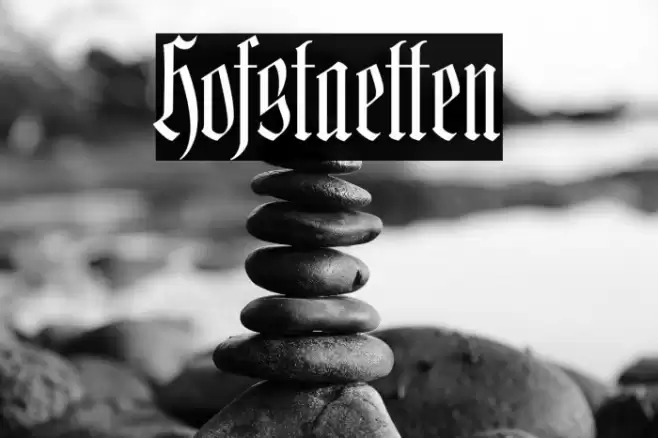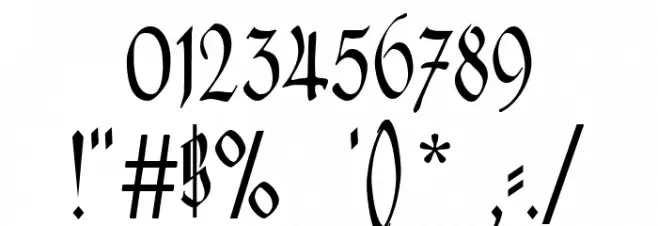
Hofstaetten Font
Hofstaetten Description
This font features a classic blackletter style, characterized by its intricate and ornate letterforms. The uppercase letters exhibit sharp, angular lines with dramatic flourishes, while the lowercase letters maintain a consistent, narrow structure. The numbers and special characters follow the same ornate design, providing a cohesive look across all glyphs. This font's historical and traditional appearance is reminiscent of medieval manuscripts and Gothic architecture, making it ideal for projects that require a touch of elegance and formality.
A classic blackletter font with ornate, angular letterforms from Uncategorized fonts.
- Proposed Projects: Suitable for certificates, invitations, branding for luxury products, historical or medieval-themed events, and decorative headlines.
- Character Spacing: Tight
- Overall Style: Vintage
- Use Case: Headlines, Logos, Decorative text